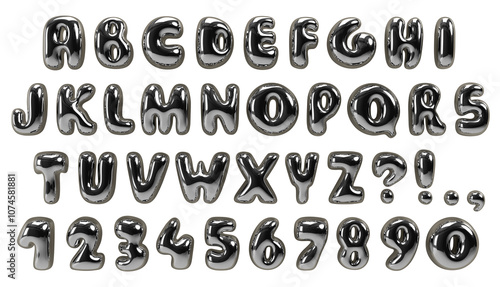
3d chrome liquid font. Bold silver bubble typeface. Liquid metal letters isolated on white. Y2K style alphabet. Glossy font. Letters with molten metal effect. Metallic, fluid surface with reflections